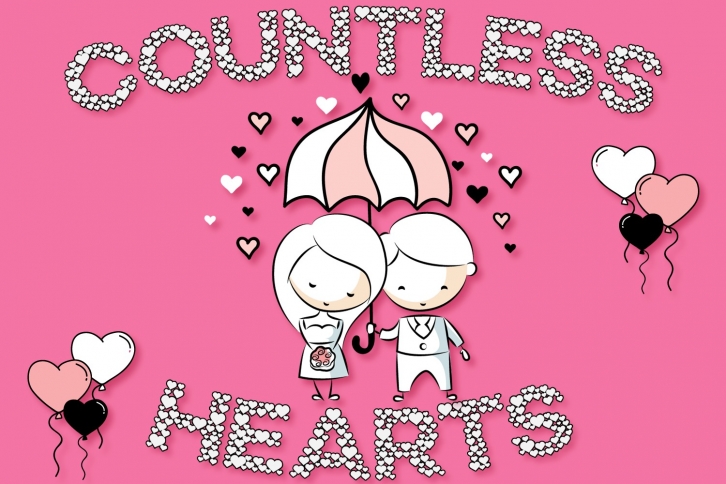
Countless Hearts | Love Craft Font Download
Countless Hearts is a trendy and unique font with an authentic style. It was designed by Anastasia Feyas Fonts & Crafts and it's a great choice for creative people who need such a font. It was released on January 13, 2020 and the file size is 17.31 MB. Countless Hearts will add an organic vibe to any design idea!